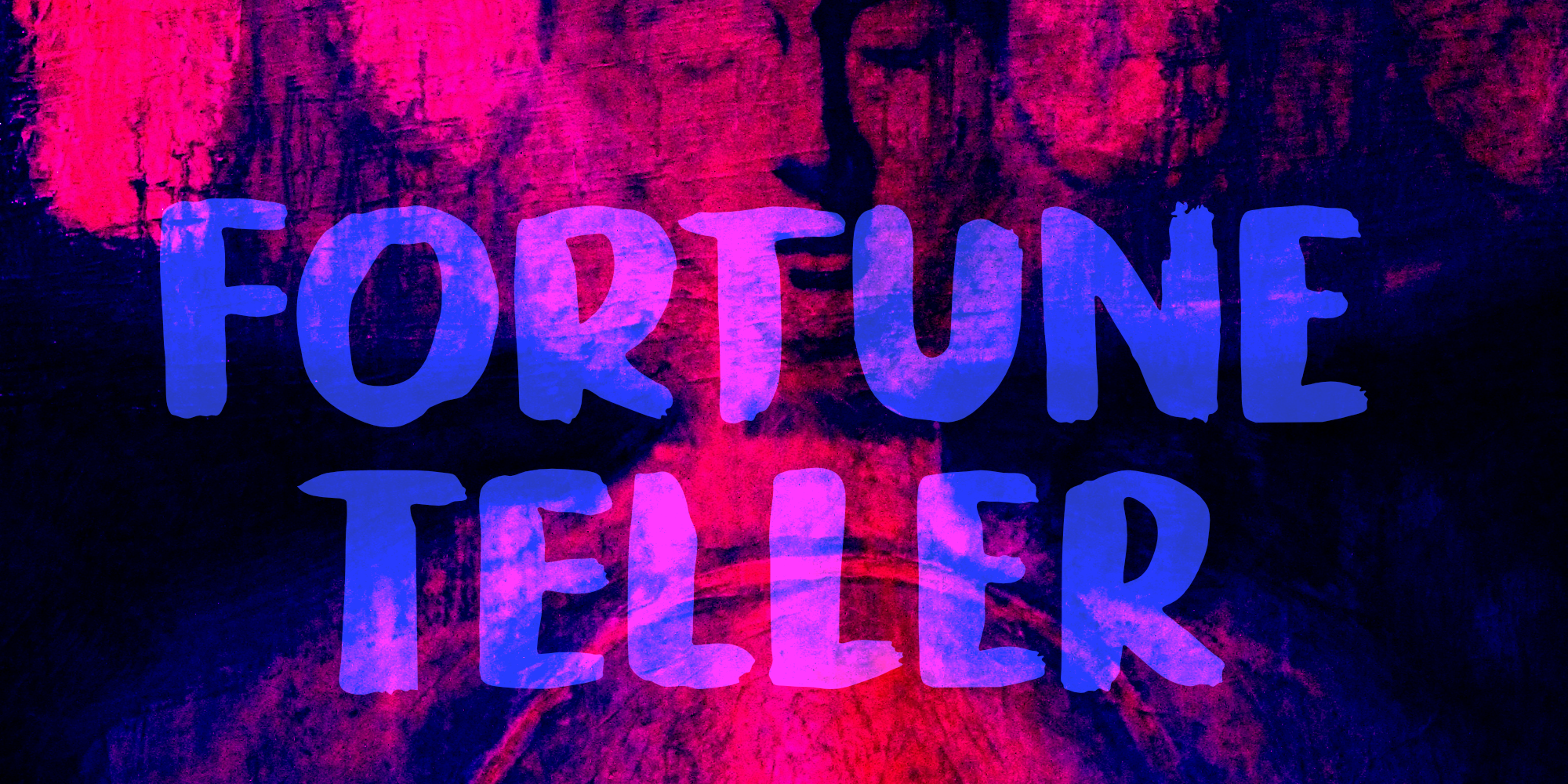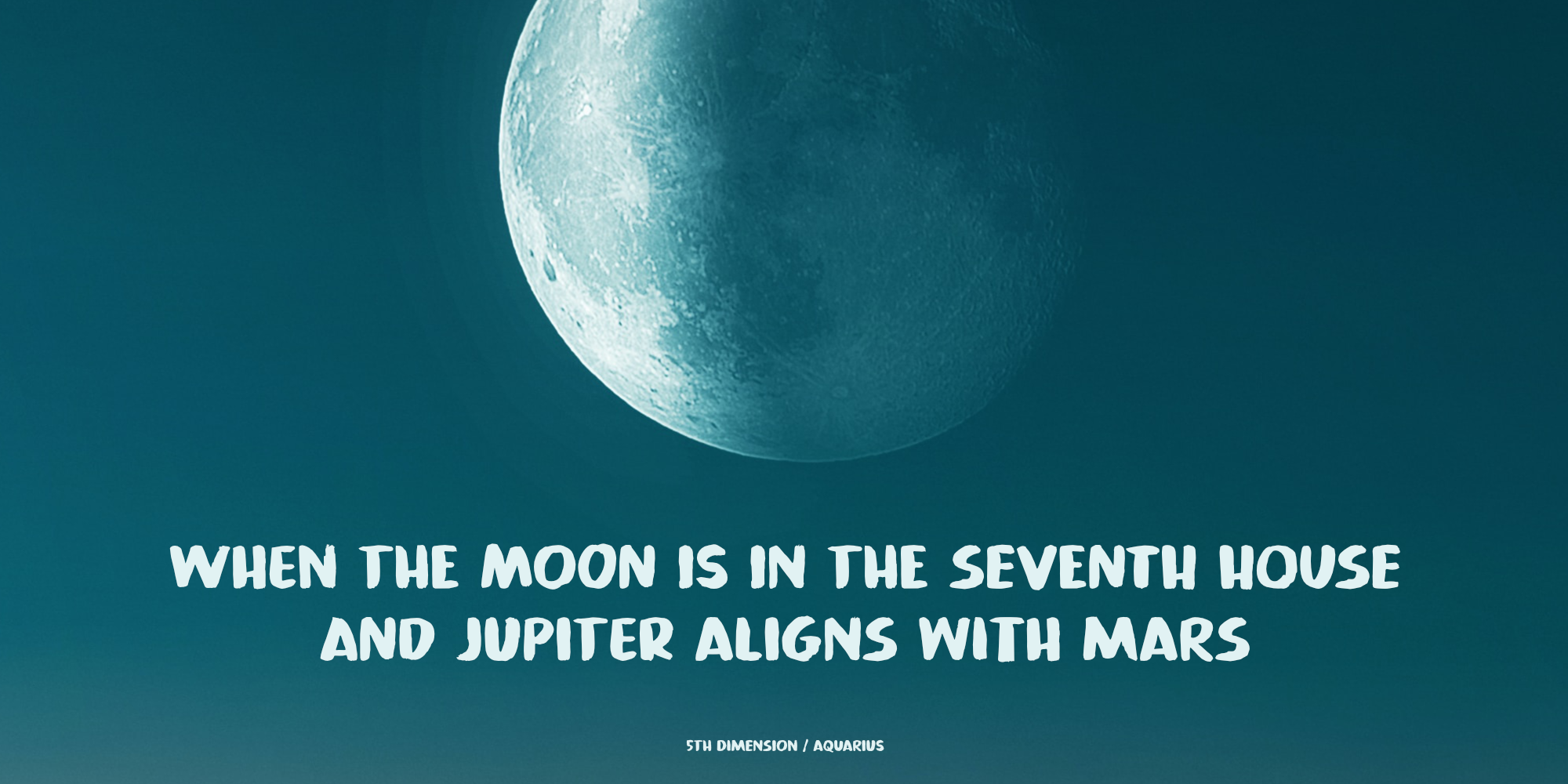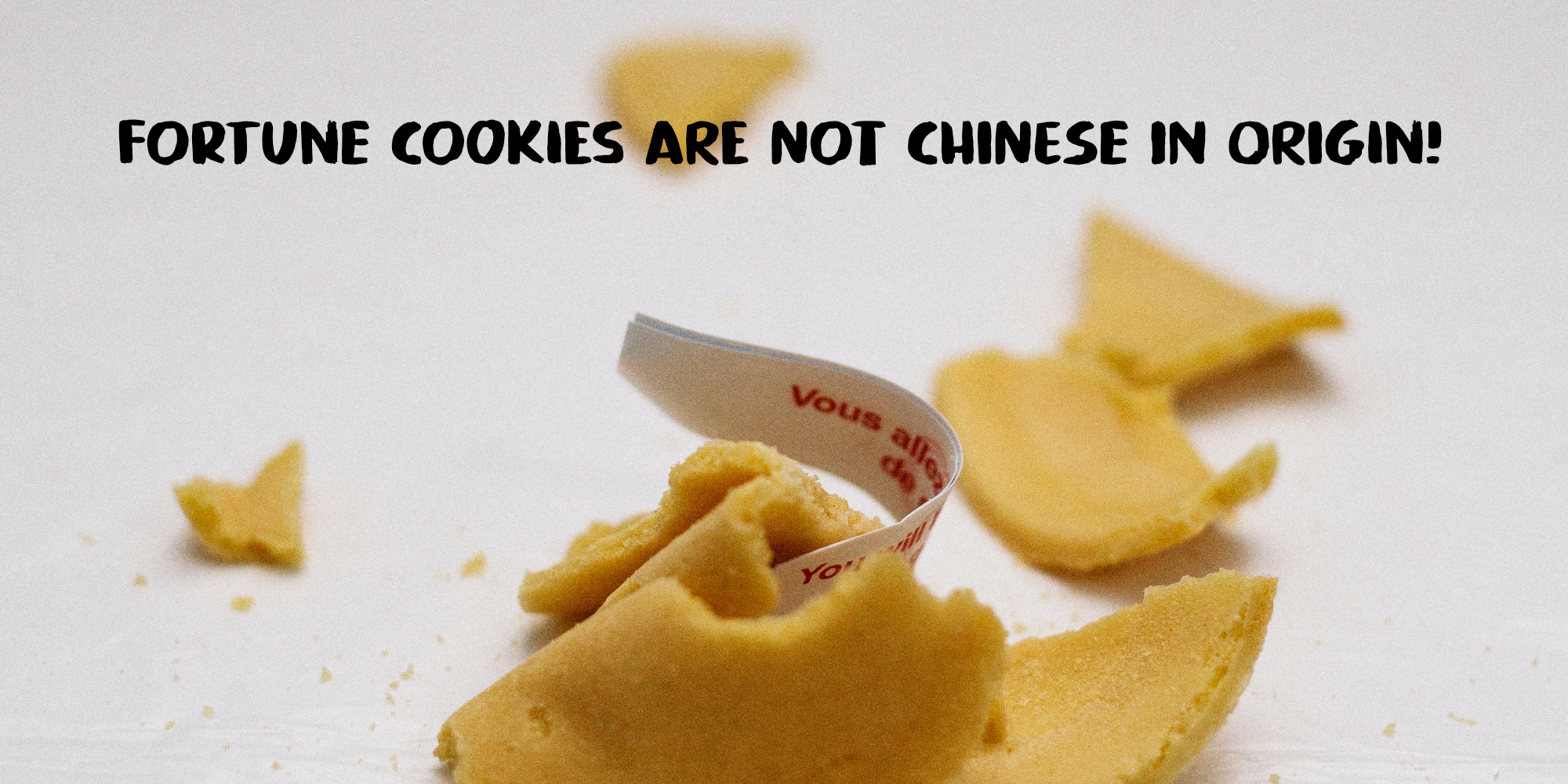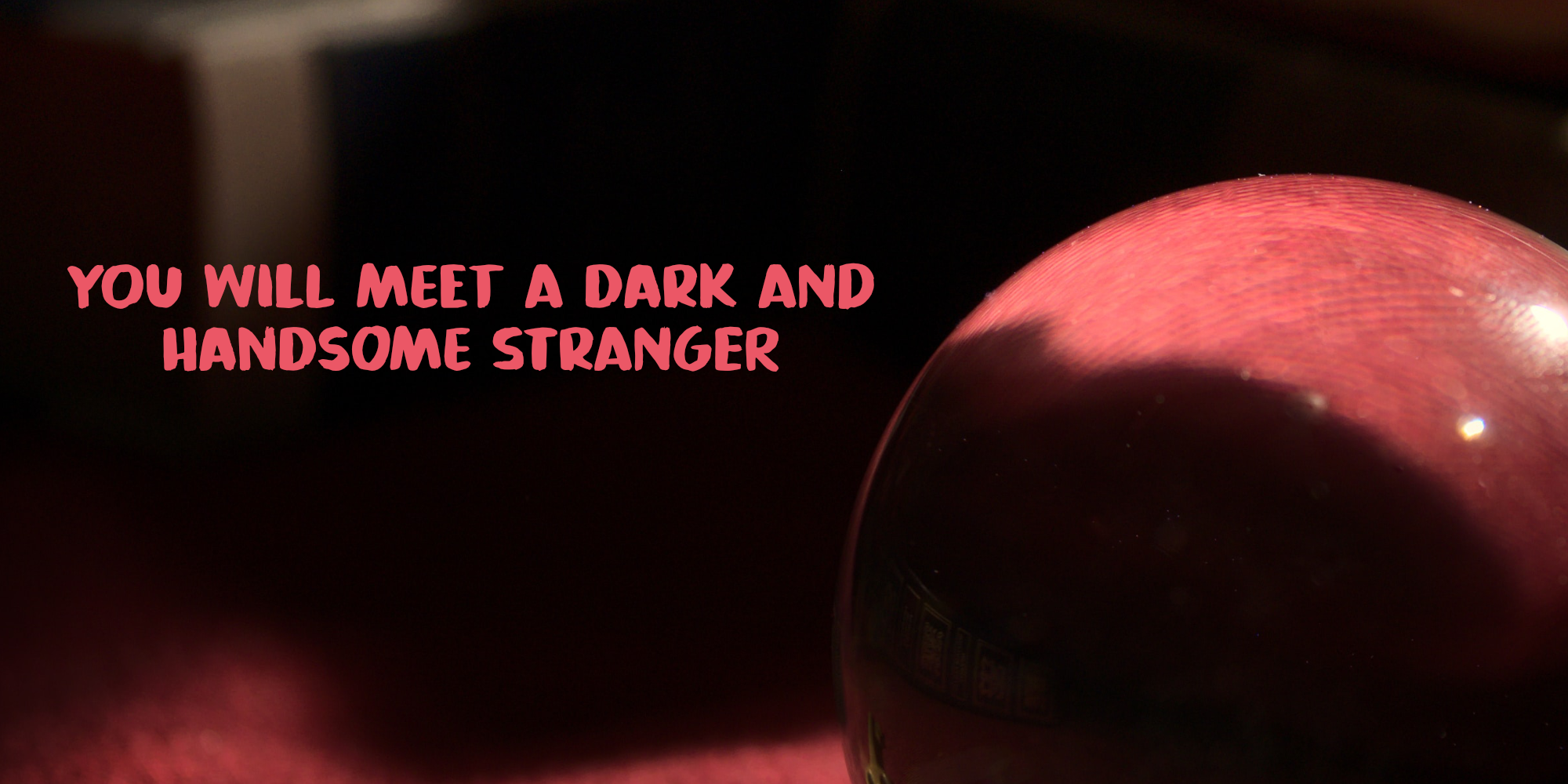
Fortune Teller (2 fonts)
Fortune Teller is a nice brush font. I made it with one of my late father in law’s Chinese brushes and ink. It comes with all diacritics and a set of alternate glyphs. If you buy this font, you will meet with a tall and handsome stranger and you will win the lottery. Guaranteed! Haha!